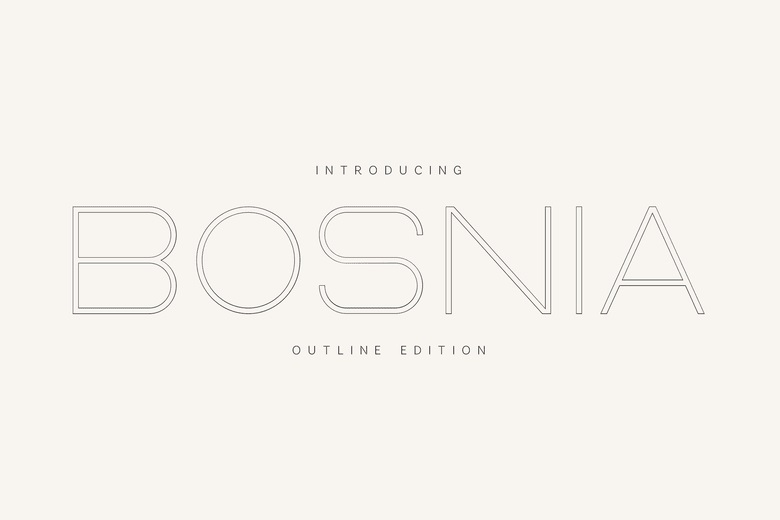
Bosnia Outline Font
Bosnia Outline Font is a modern geometric outline font with clean double-line letters and a simple, contemporary style. It works well for logos, branding, packaging, posters, editorial layouts, social media graphics, technology projects, architecture presentations, and luxury visual identities.
Bosnia Outline has a refined, elegant look and is easy to read. Its light outline makes it a great choice for premium branding, futuristic headlines, fashion campaigns, cosmetic packaging, modern signage, creative portfolios, and sophisticated typography projects.
Bosnia Outline supports multiple languages, includes numerals and punctuation, and features carefully designed characters. This versatile display font adds clarity, balance, and style to any design.
Bosnia Outline Display Font